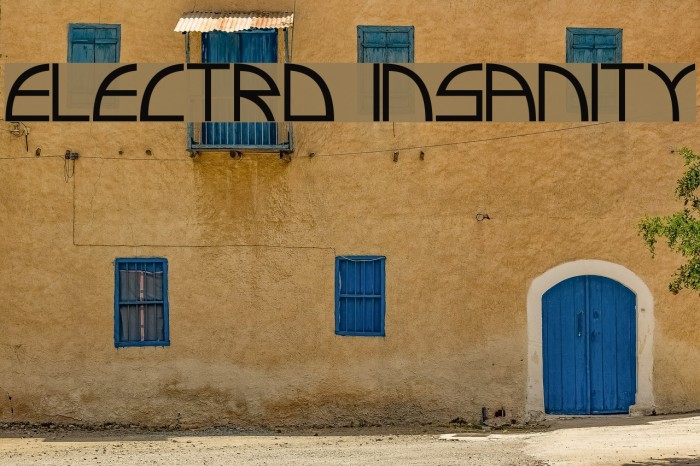
Electro insanity Font
This font features a futuristic and geometric design, characterized by its sharp angles and clean lines. The uppercase letters exhibit a unique blend of curves and straight edges, creating a modern and edgy appearance. The lowercase letters maintain this style, offering a consistent look throughout. Numbers are designed with a similar aesthetic, ensuring uniformity. Special characters are creatively integrated, adding to the font's distinctive style. The overall design is bold and eye-catching, making it suitable for projects that require a modern and innovative touch.
A futuristic, geometric font with sharp angles and clean lines.
- Proposed Projects: Ideal for technology branding, sci-fi posters, video game titles, and modern advertising.